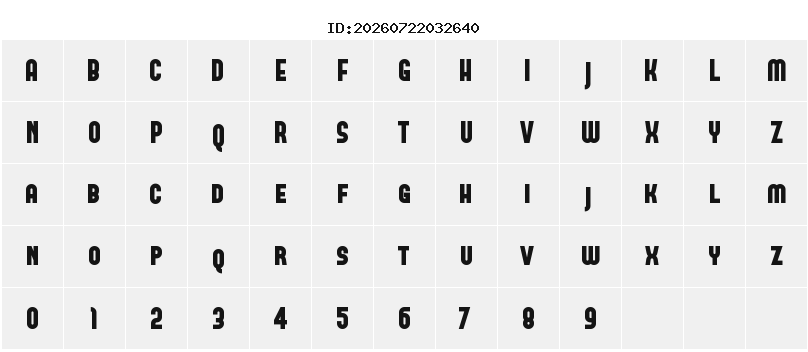
FORQUE Preview
• Designer: Tup Wanders
About FORQUE.ttf
FORQUE.ttf is a modern, elegant sans-serif font designed for ultimate readability and visual harmony. Perfect for branding, headlines, web design, and print materials.